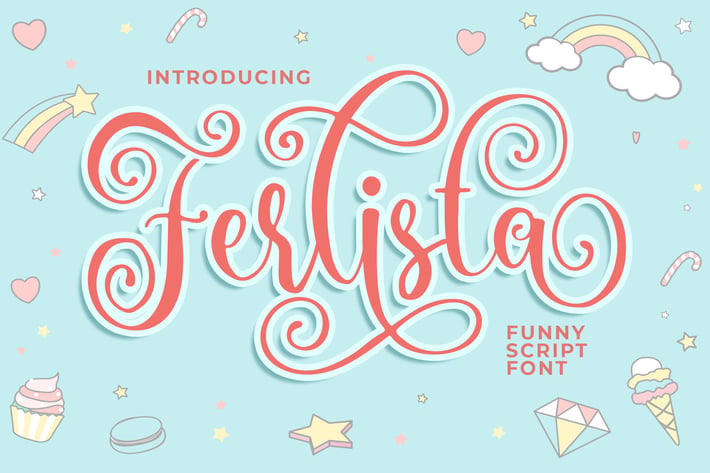
Ferlista Funny Script Font
Introducing of our new product the name is Ferlista Funny Script Font. Ferlista inspired by Quirky Handwritten style this font is a fun theme very good for display, tshirt design, craft, quote sign, logotype and etc